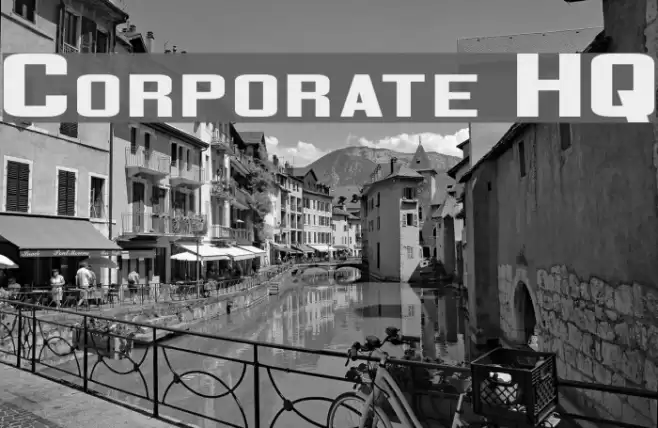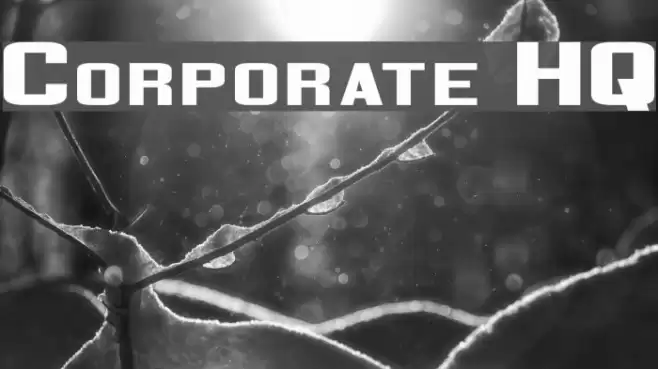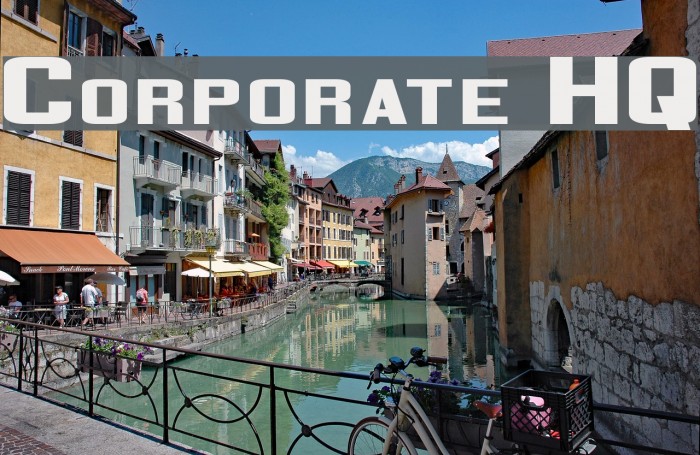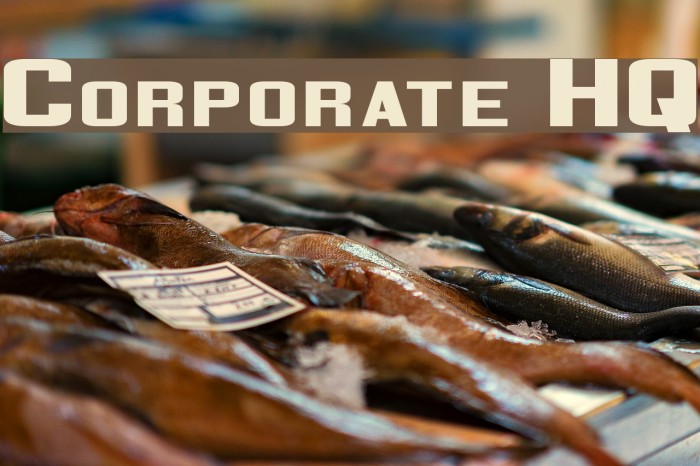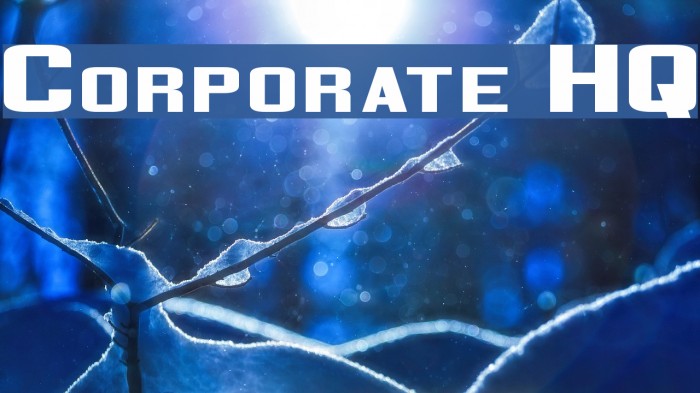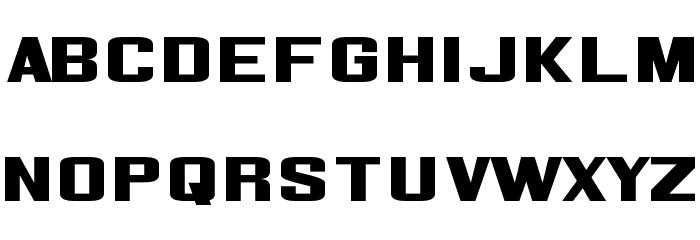
Corporate HQ Font
Corporate HQ Description
This font features a bold, geometric design with strong, clean lines and a modern aesthetic. The characters are uniformly wide, creating a sense of stability and strength. The uppercase letters are particularly striking, with a blocky appearance that is both assertive and professional. The font's design is consistent across all characters, maintaining a cohesive look that is ideal for corporate branding and signage. Its boldness ensures high visibility and readability, making it suitable for both digital and print media. The absence of serifs gives it a contemporary feel, while the uniform stroke width adds to its modernity. This font is versatile, capable of conveying a sense of authority and confidence in various applications.
A bold, geometric sans-serif font with a modern and professional appearance from Modern fonts.
- Proposed Projects: Ideal for corporate branding, signage, headlines, and digital media where a strong, modern presence is required.
- Use Case: Headlines, Logos, Signage